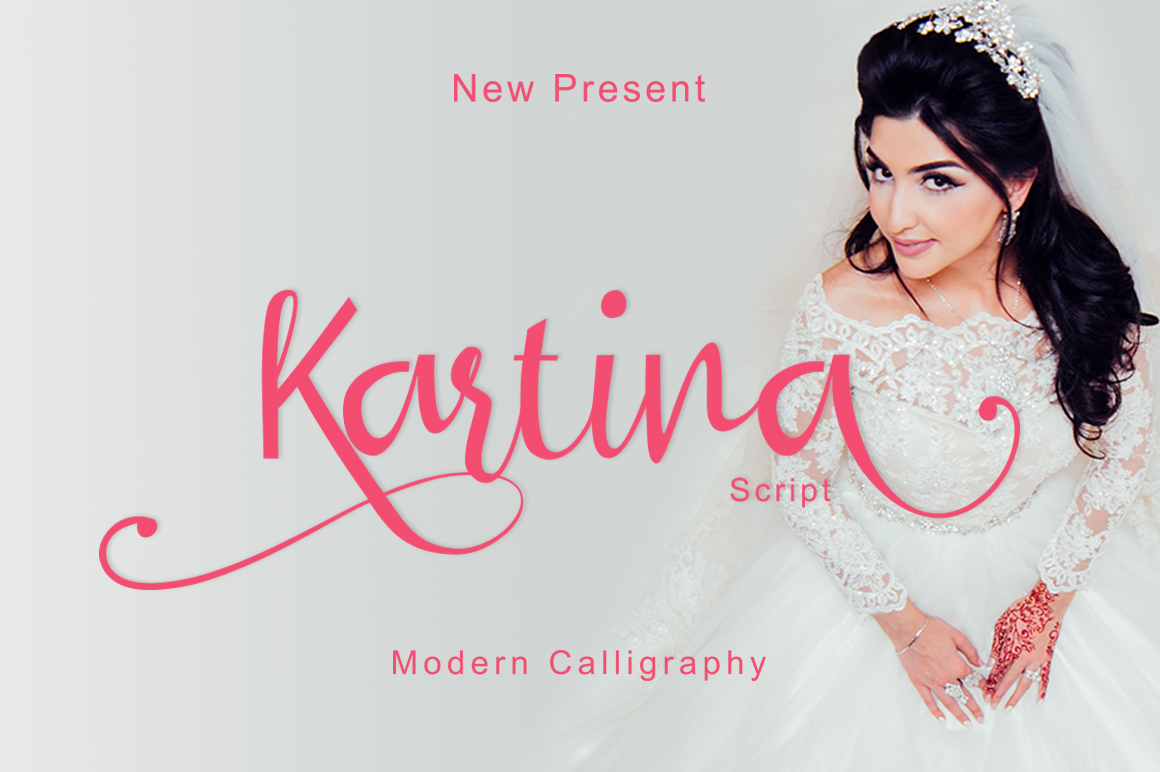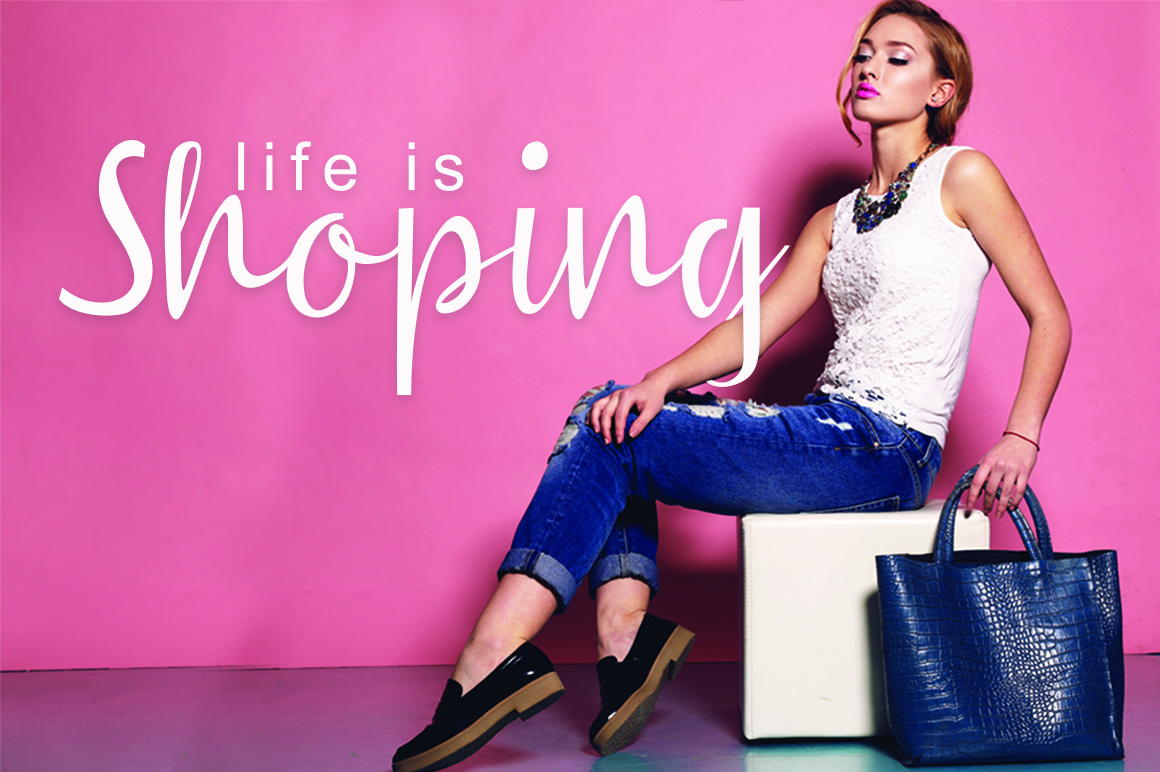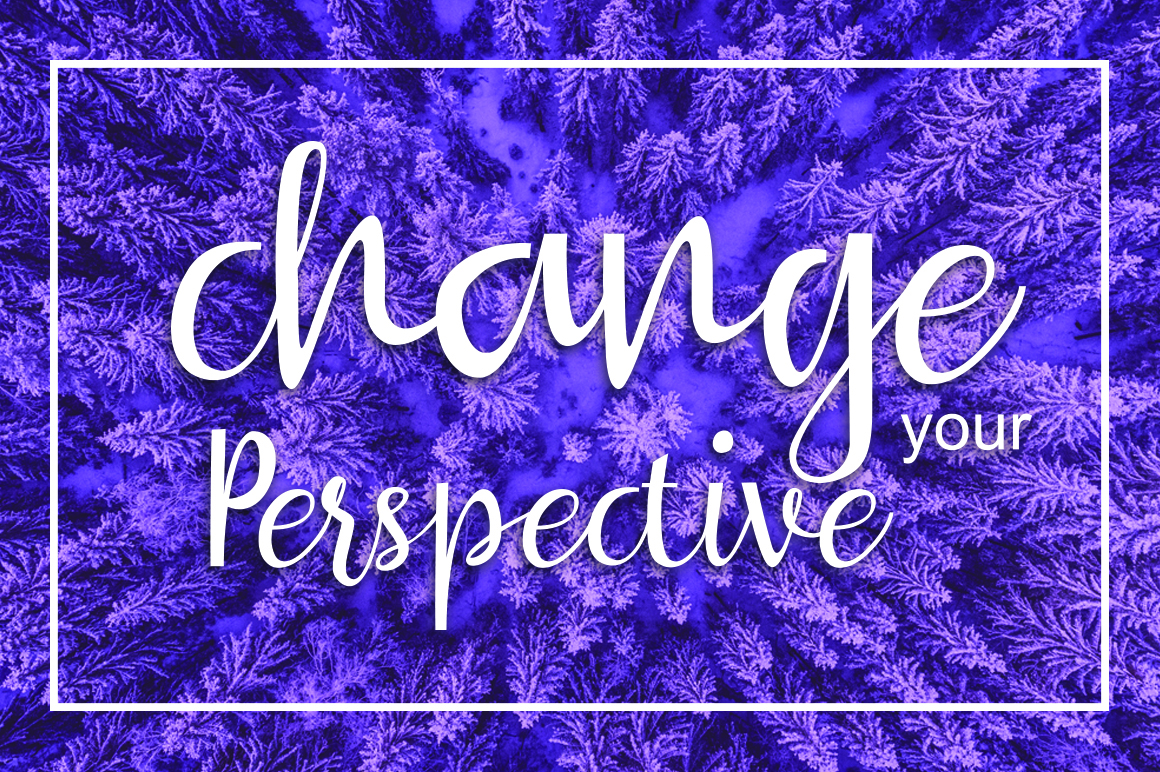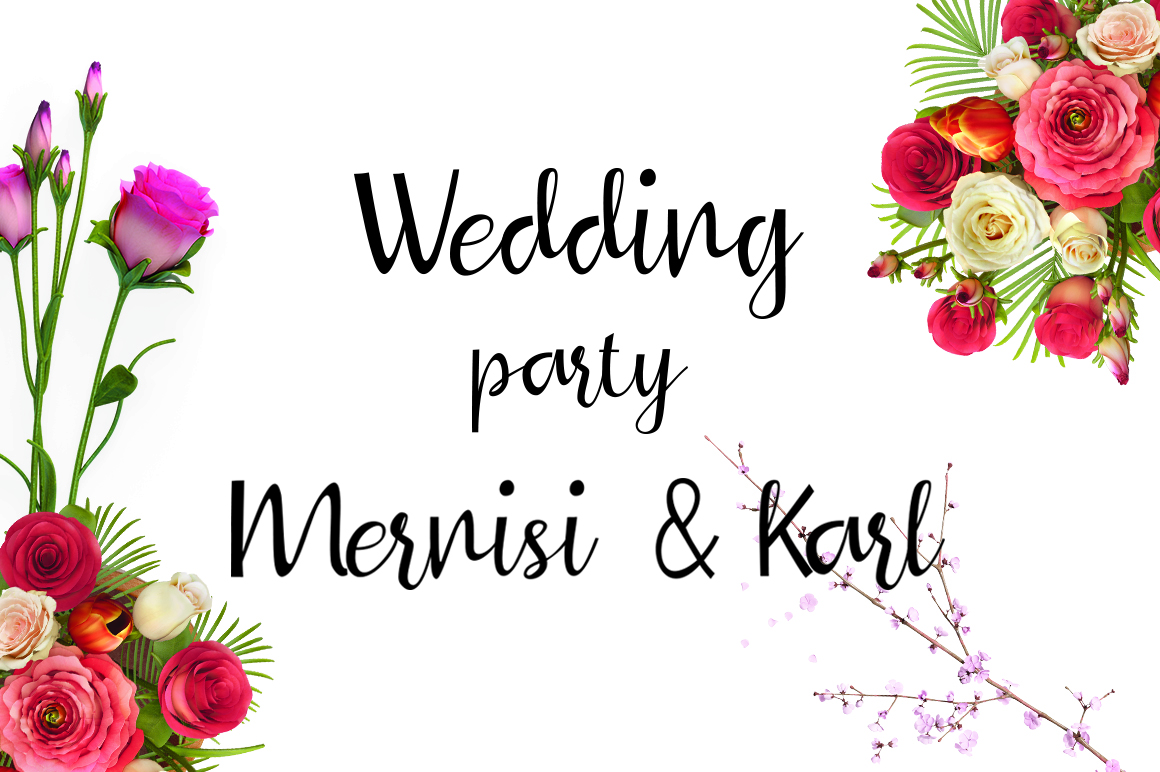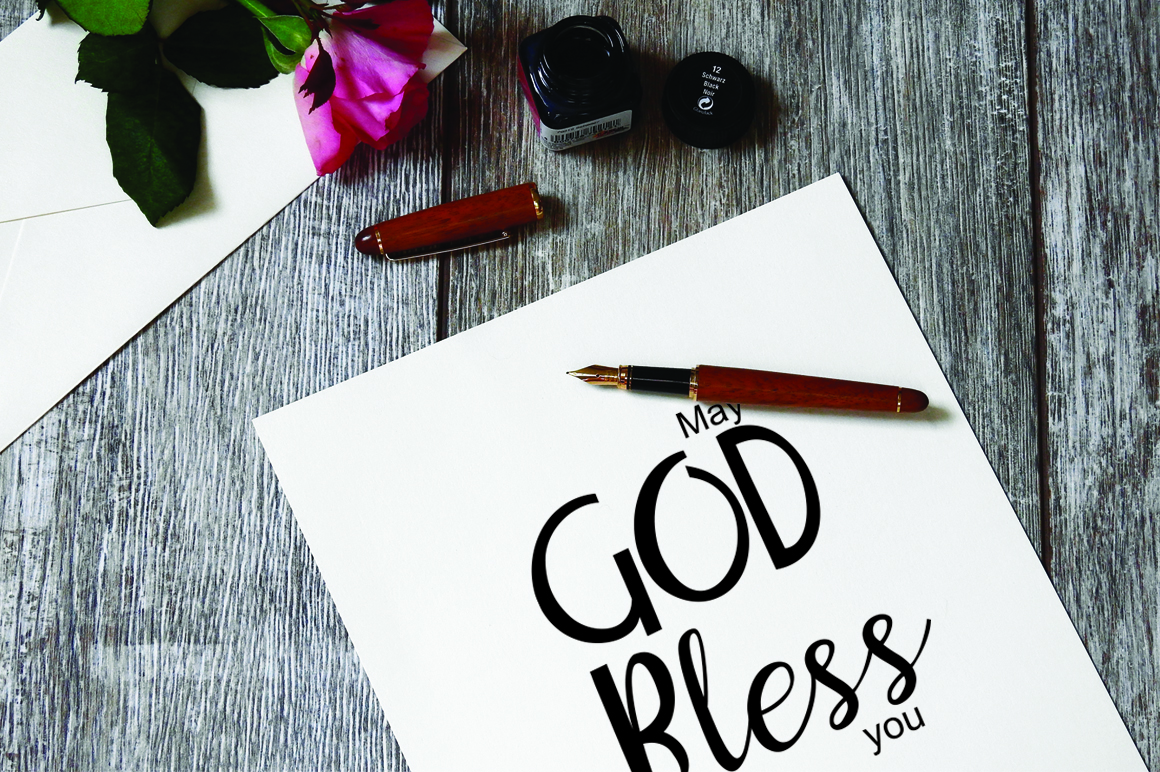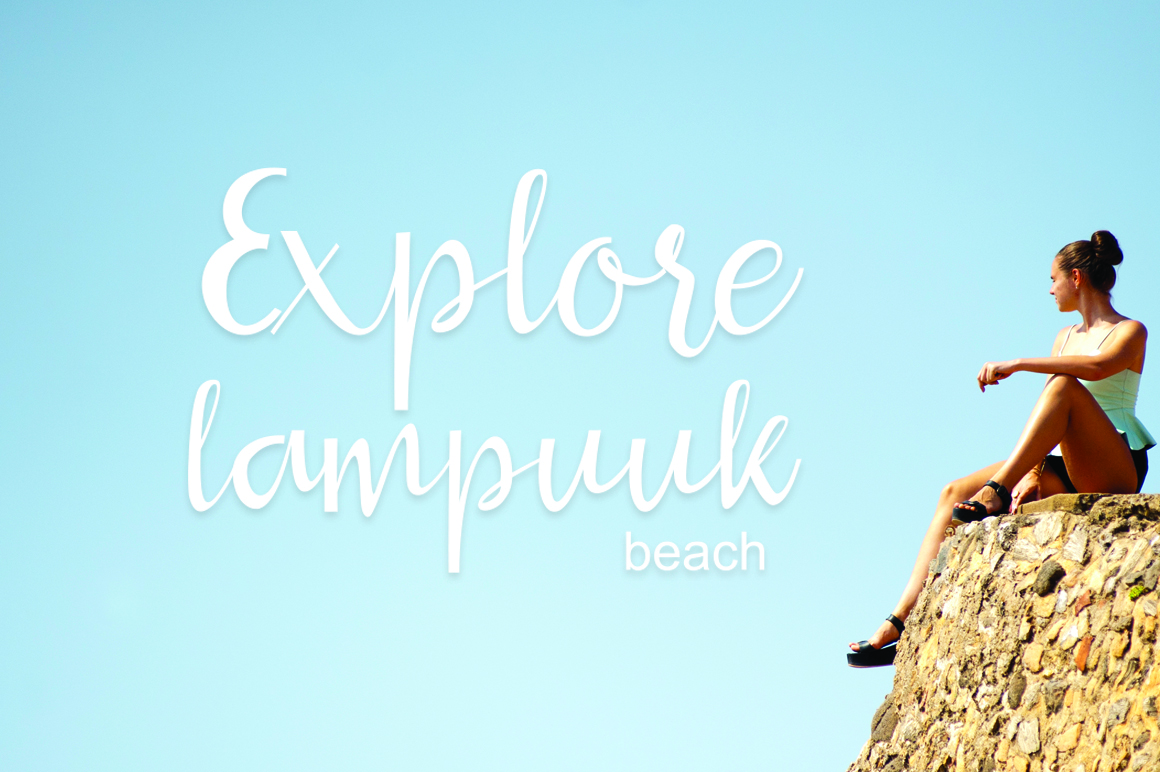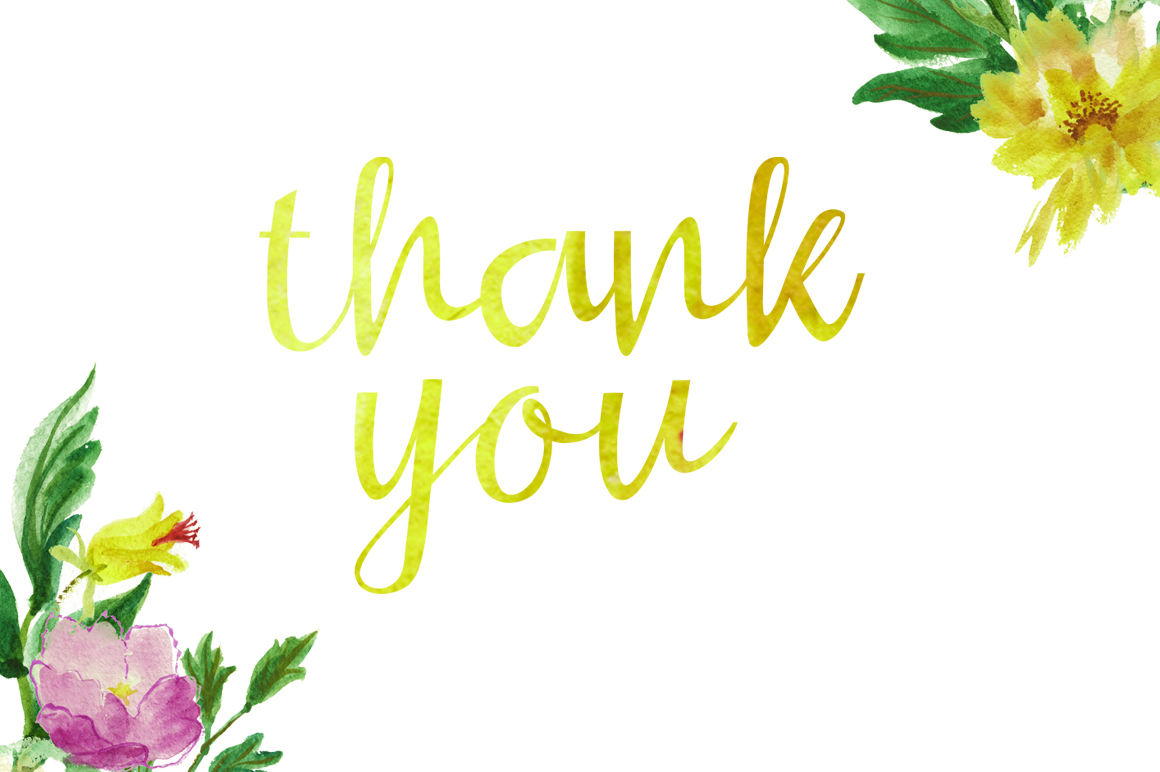
HomeScript FontsKartina Script Font Script Fonts Kartina Script Font FacebookXPinterestWhatsApp Kartina Script Font Poster 2 Kartina Script Font Poster 3 Kartina Script Font Poster 4 Kartina Script Font Poster 5 Kartina Script Font Poster 6 Kartina Script Font Poster 7 About Kartina Script Font Kartina Script is a stunning handwritten font that is suitable for many different projects. DOWNLOAD NOW People also explored Syani White Font Lifting Others Font Chollistio Font Peppermint Tea Font New Forum Bold Italic Font Disnay Summer Font Betsley Font Bitter Font Merry Christmas Baby Font 255 0 TagsKartina Script Font Previous articleI Heart You Always FontNext articleScooter Font LEAVE A REPLY Cancel reply Comment: Please enter your comment! Name:* Please enter your name here Email:* You have entered an incorrect email address! Please enter your email address here Website: Save my name, email, and website in this browser for the next time I comment. Personal Use Free BD Nokio Personal Use Free Read more about this font Susanna Personal Use Free Read more about this font Jellia Personal Use Free Read more about this font Rionaldo Angelo Personal Use Free Read more about this font BLOG Using Fonts in Digital Marketing: Tips to Strengthen Your Brand Identity In the realm of digital marketing, every visual element plays a crucial role in shaping a brand's identity, and fonts are no exception. The... Where to Buy American Fonts Online in 2024 How to Install and Use Fonts on Windows, macOS, and Web Projects To increase your work productivity, choose the most readable fonts.